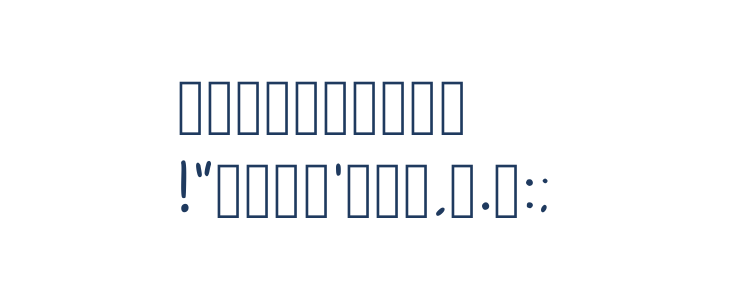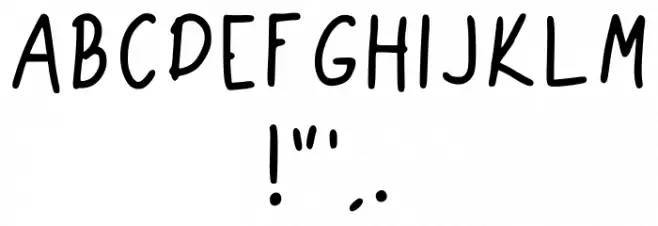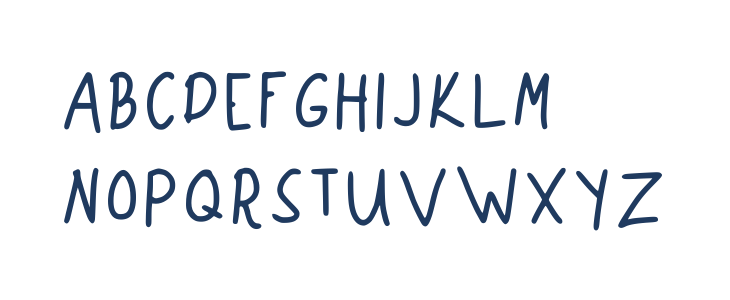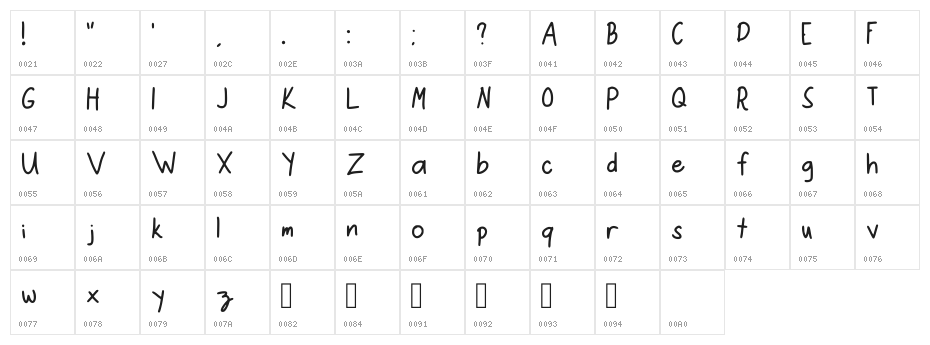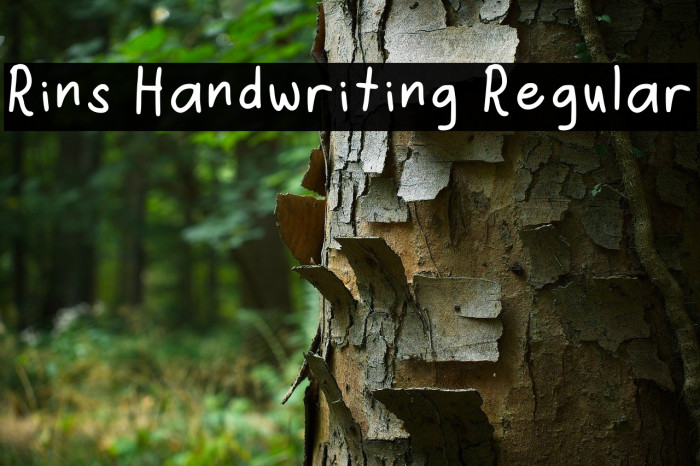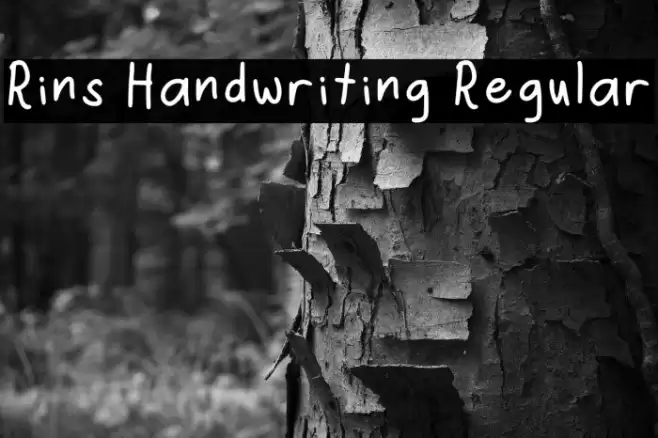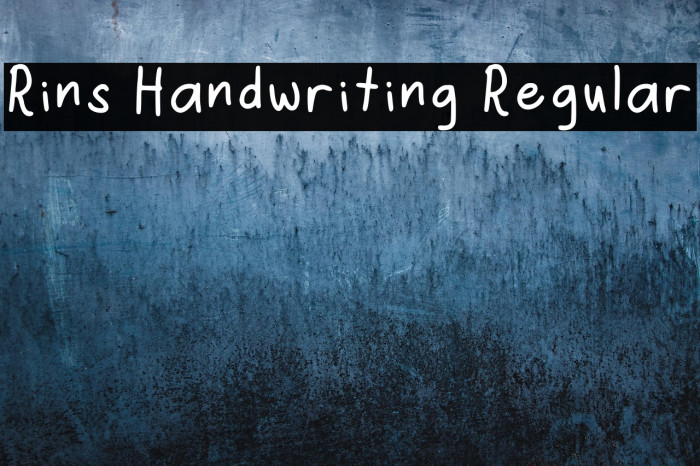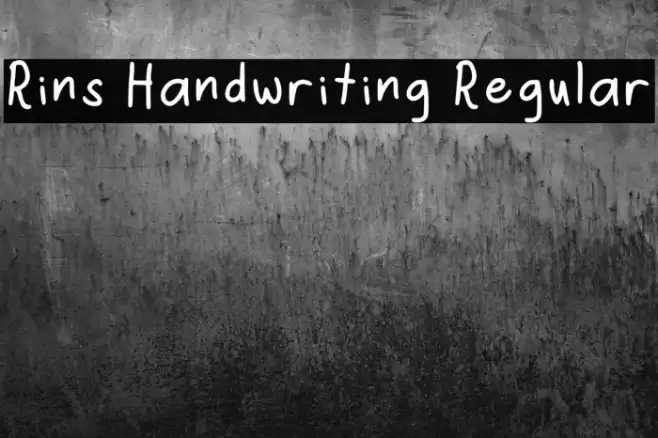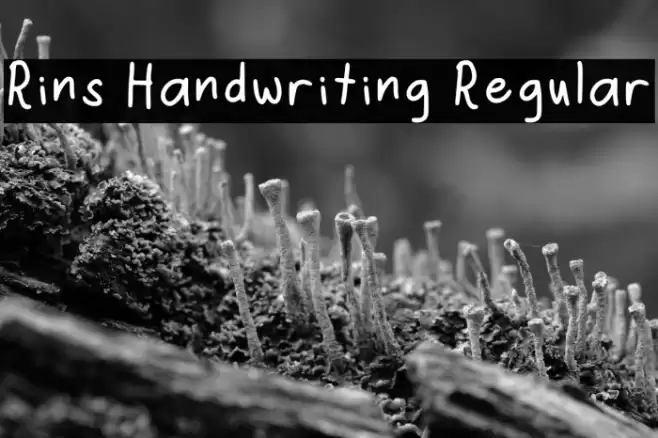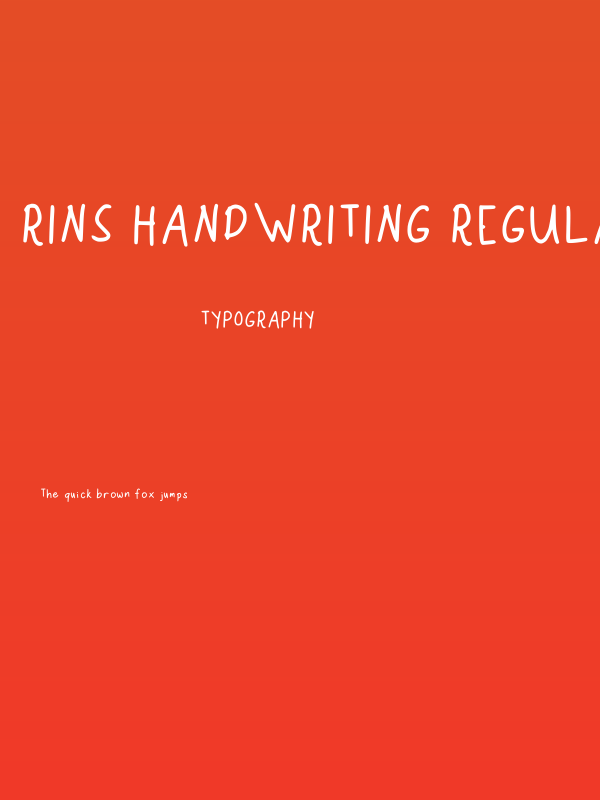
Rins Handwriting Regular Font
Rins Handwriting Regular Description
A casual, handwritten style font with a playful and informal appearance, featuring slightly irregular strokes and a friendly feel.
| Overall Style | Casual, Friendly, Handwritten |
| Use Case | Headlines, Body text, Invitations, Personal projects |